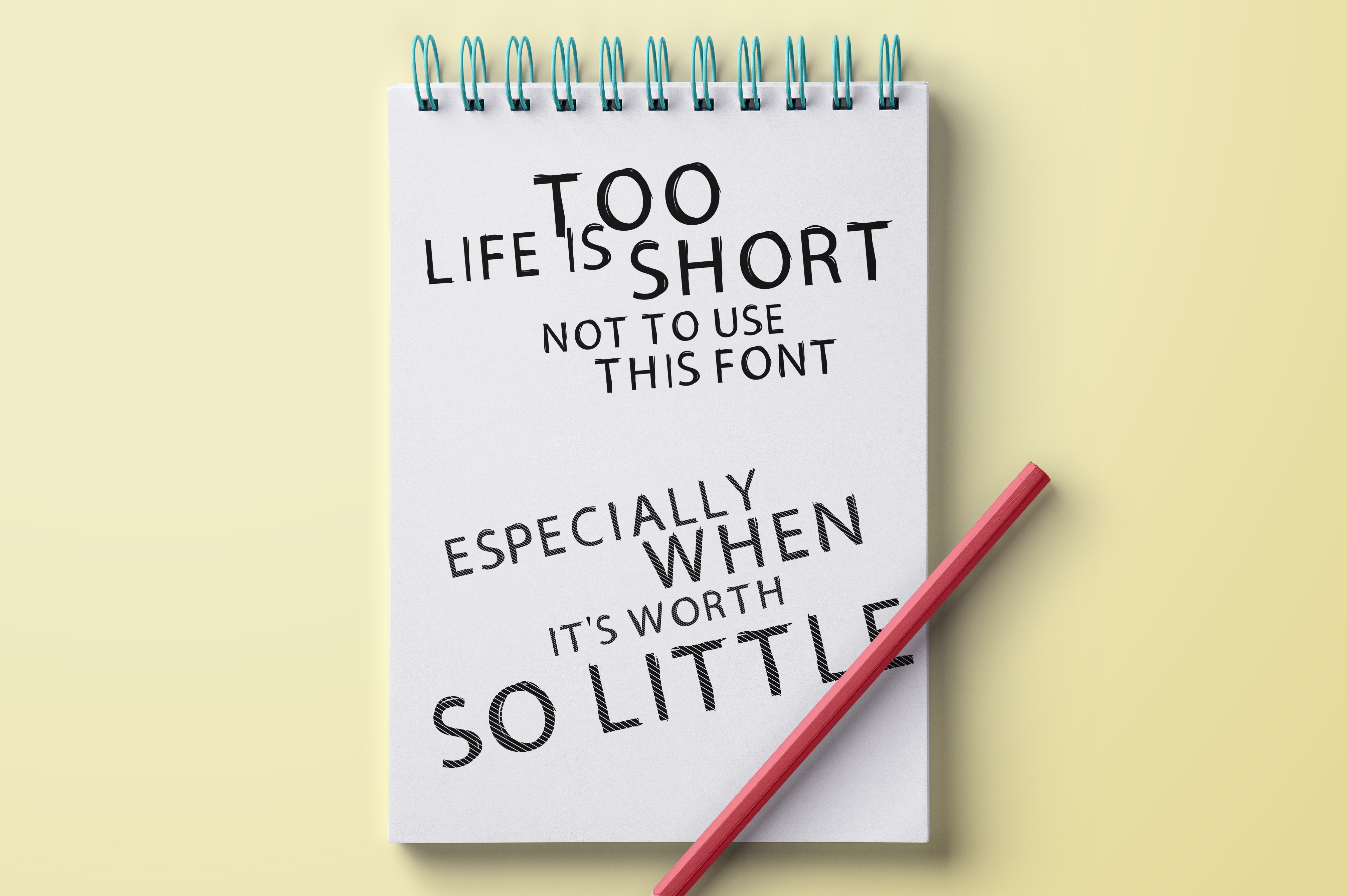
It's hand-made fonts. There is only uppercase letters - no special symbols and no glyphs. However it is amazing beautiful fonts, particularly well suited for some headlines and titles.
Here is the complete list of characters that are included: A B C D E F G H I J K L M N O P Q R S T U V W X Y Z ! ? * « » -